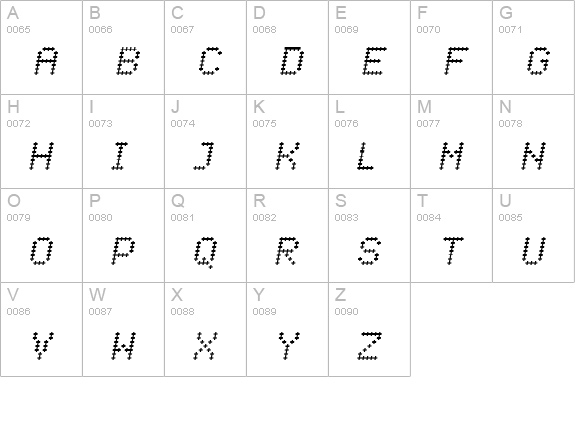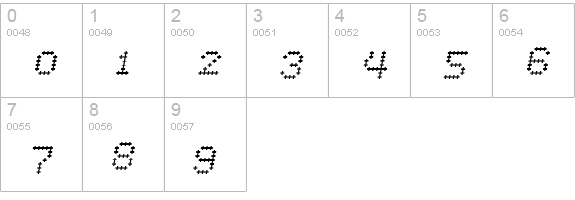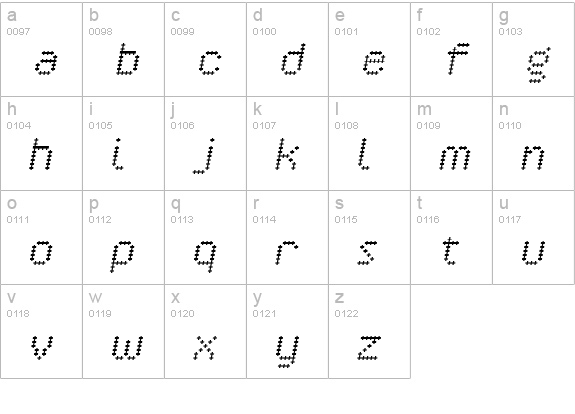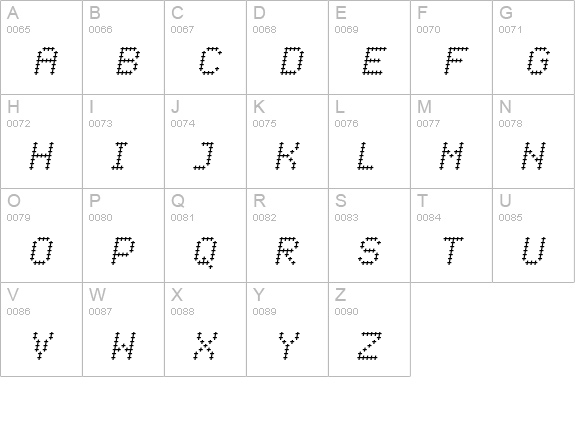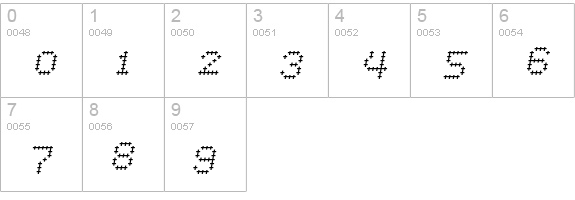
Crossover Oblique Font Details
Crossover Oblique is a distinctive, italic variant in the Crossover typeface family \xE2\x80\x94 well suited to design and typography projects.
Crossover Oblique font is a stylish and modern typeface that combines elegance with a touch of playfulness. With its unique slanted design and sleek lines, this font is perfect for adding a contemporary flair to any project. Whether you're designing a poster, logo, or website, Crossover Oblique font will make your text stand out. What's even better is that Crossover Oblique font is available for free download at FontsMarket.com. That's right, you can elevate your designs with this chic font without spending a penny. So why wait? Give your projects a fresh and dynamic look with Crossover Oblique font today!